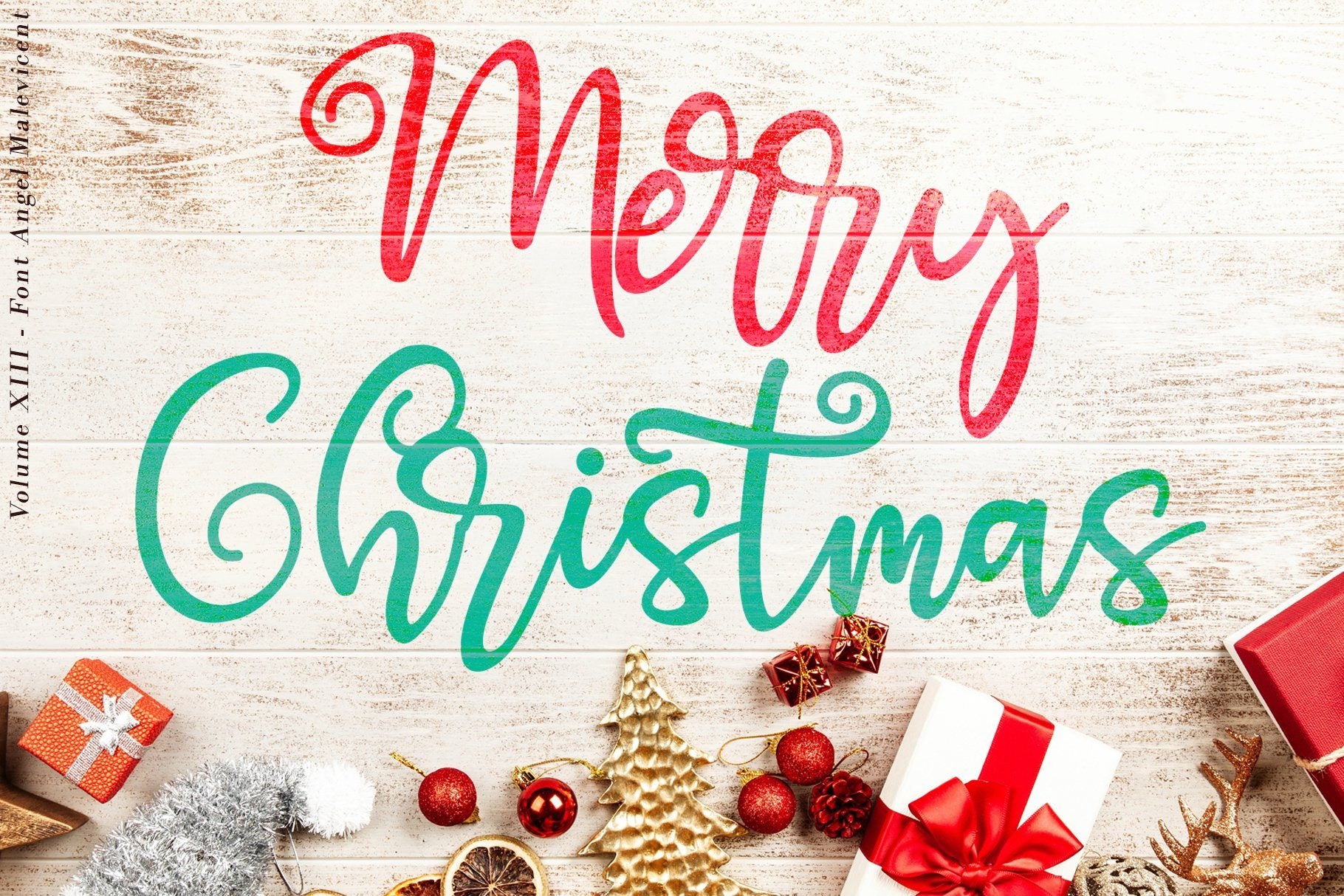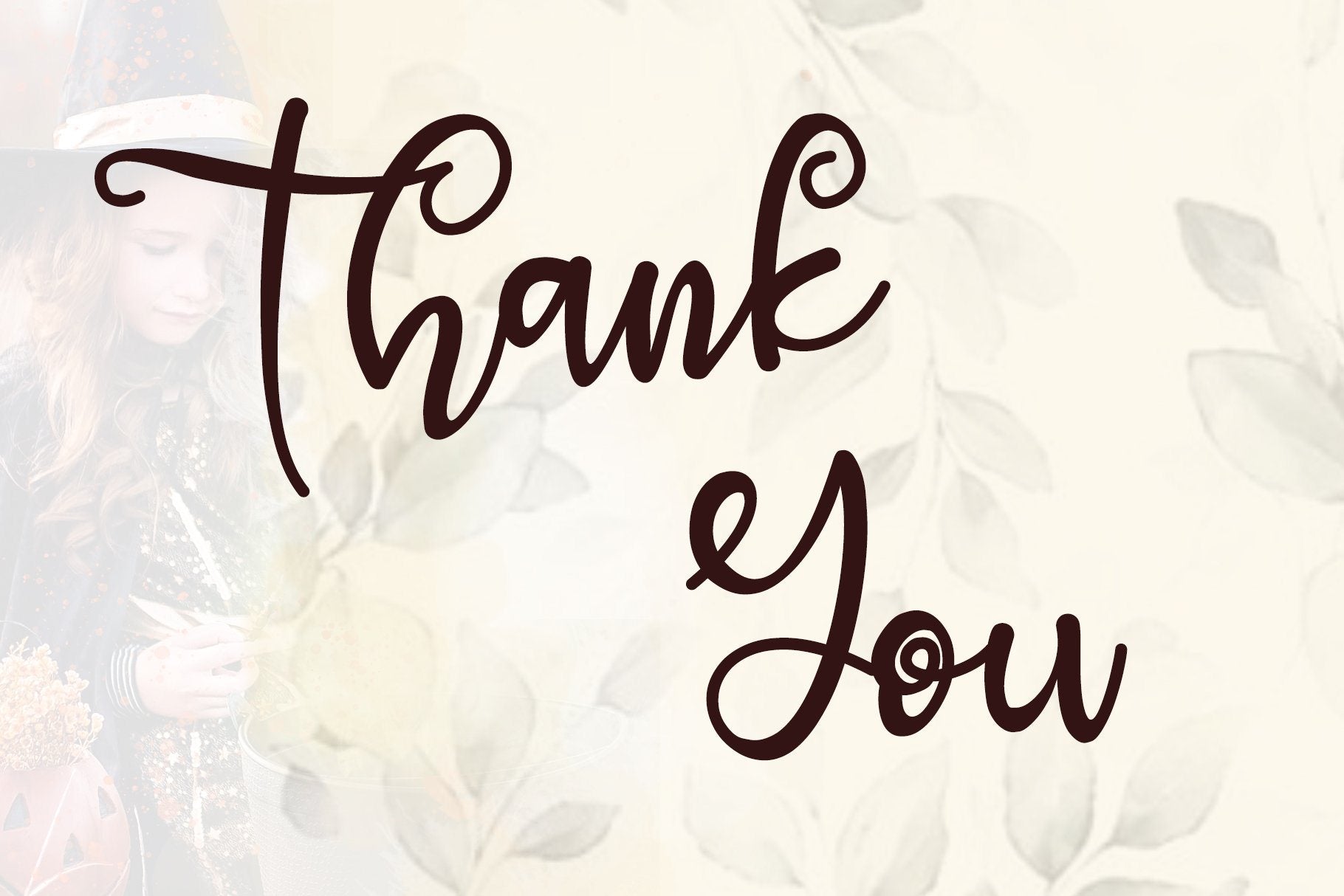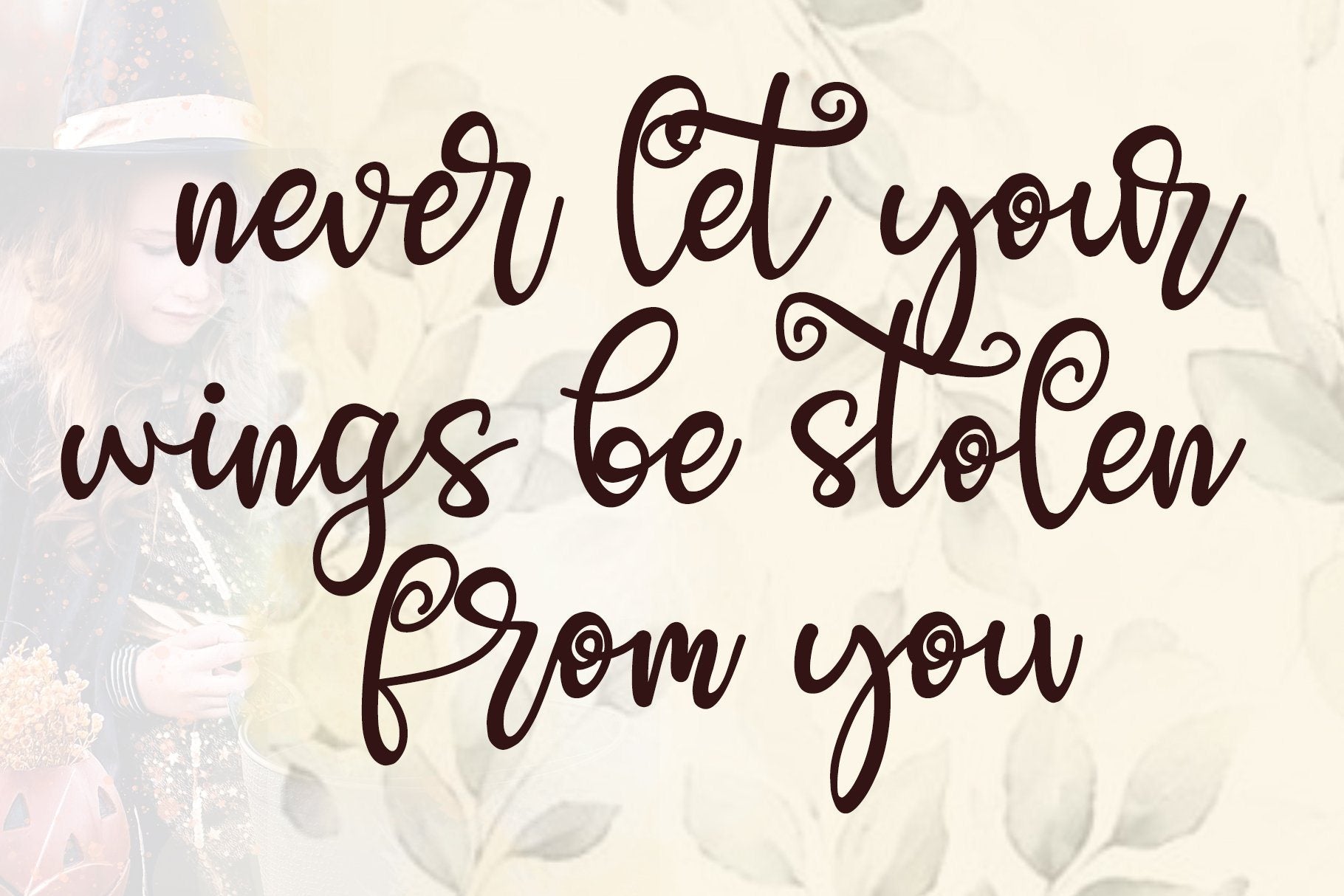
About ANGEL MALEFICENT (10 STYLES IN 1 TYPEFACE)
Angel Maleficent is a beautiful font family, with its different several styles perfectly working together to create bright standout designs! This font is available in 10 style in 1 typefaces : Thin, Light, Regular, Semi Bold, Bold, Thin Italic, Light Italic, Semi Bold Italic, Bold Italic. and most importantly, Angel Maleficent is perfect for you. you can get: Angel Maleficent.ttf Angel Maleficent.otf Angel Maleficent Thin.ttf Angel Maleficent Thin.otf Angel Maleficent Thin Italic.ttf Angel Maleficent Thin Italic.otf Angel Maleficent Semi Bold.ttf Angel Maleficent Semi Bold.otf Angel Maleficent Semi Bold Italic.ttf Angel Maleficent Semi Bold Italic.otf Angel Maleficent Light.ttf Angel Maleficent Light.otf Angel Maleficent Light Italic.ttf Angel Maleficent Light Italic.otf Angel Maleficent Italic.ttf Angel Maleficent Italic.otf Angel Maleficent Bold.ttf Angel Maleficent Bold.otf Angel Maleficent Bold Italic.ttf Angel Maleficent Bold Italic.otf Features : Ligature Simple installations Standard Uppercase and Lowercase Alphabet Numbers and Punctuation Ligatures PUA Encoded Multilingual support AÀÁÂÃÄÅCÇDEÈÉÊËIÌÍÎÏNÑOØÒÓÔÕÖUÙÜÚÛYÝŸ?Ÿ To access the Ligature glyph, you need a program that support Open Type Features such as Adobe Illustrator CC, Adobe Photoshop CC, Adobe Indesign or CorelDraw. don’t wait anymore, put it in your shopping basket 🙂 and follow me, because there will be many promos! Our other products : BEST SELLER BLACK PINK SIGNATURE ANDORA BRIGITTA SANTERIA HEANFFE GALGADOT EIFFEL IN LOVE ( FONT TRIO) SUMMER CHERRY BLACK PINK SUMMER ALLELUYA HONG KONG